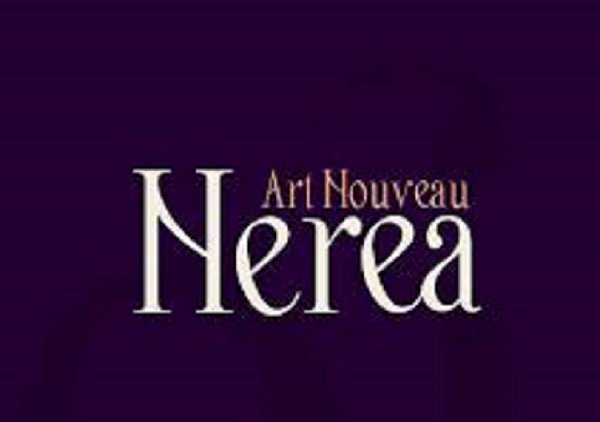
Nerea, Art Nouveau Typography
Nature is the queen in the Art Nouveau and it highlights the organic intertwined forms, plant motifs, the curved line and sensuality. The shapes are sinuous, floral and innovative, and from that understanding comes this new typographic project.